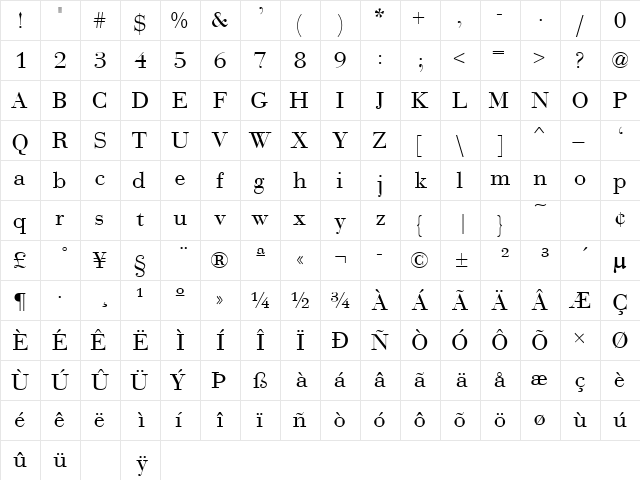
BodoniRecutSSK Regular
Design Context for BodoniRecutSSK Typeface
BodoniRecutSSK takes a measured approach to typography — its balanced proportions and neutral character make it a reliable workhorse for both digital and print work.